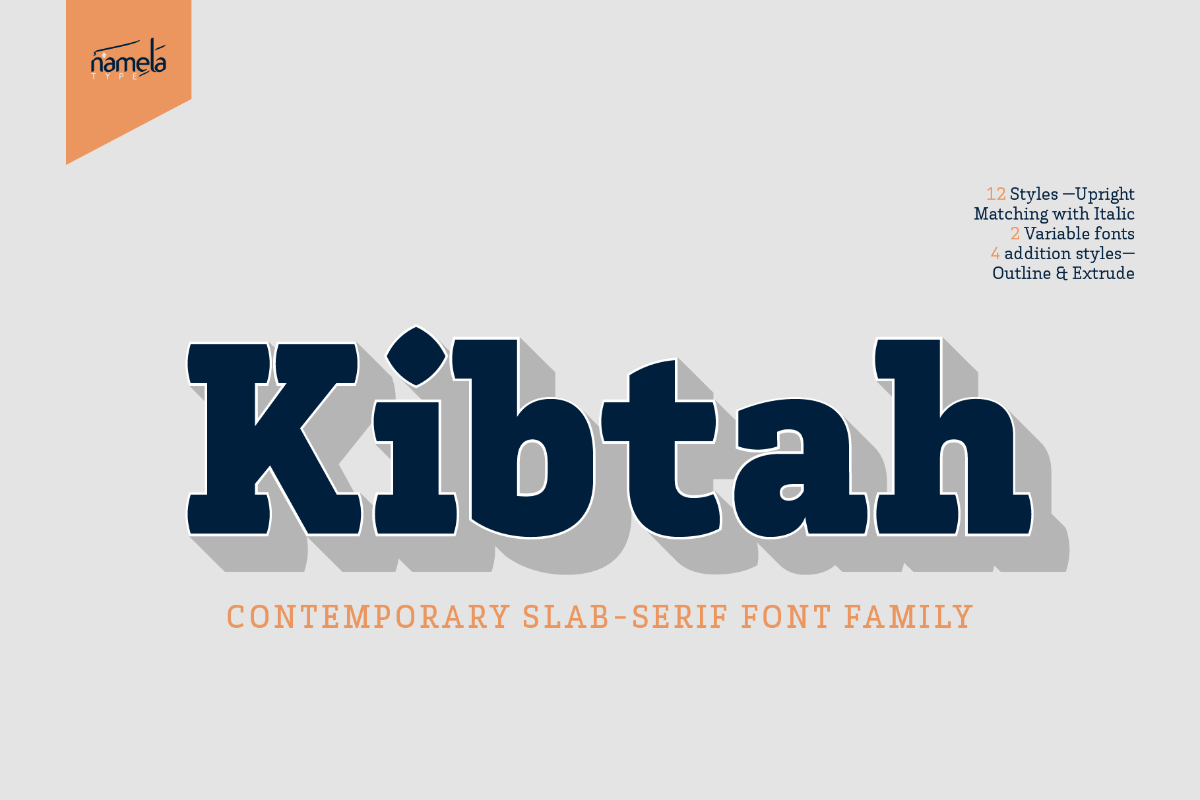
Kibtah SemiBold
Kibtah Font - A Contemporary Slab-Serif Typeface for Branding & Apps Some typefaces whisper. Kibtah Contemporary Slab-Serif Font does not. It is a bold, contemporary slab serif family built for moments when typography must carry real visual weight—headlines that command attention, identities that project confidence, and systems that require a strong structural foundation. With its monolinear construction, extended weight range, and expressive display styles, Kibtah delivers intensity without